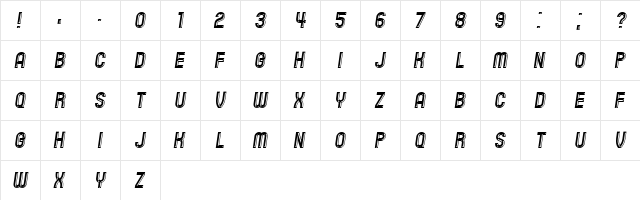
Playback Bold Italic Font Preview
Design Context for Playback Typeface
Playback takes a measured approach to typography — its balanced proportions and neutral character make it a reliable workhorse for both digital and print work. The slanted form adds forward momentum and visual energy. The heavy weight commands attention and anchors typographic hierarchies.
Pro Tip: Try Playback for annotation and caption copy alongside an upright companion — the contrast in angle creates a dynamic but ordered typographic system.